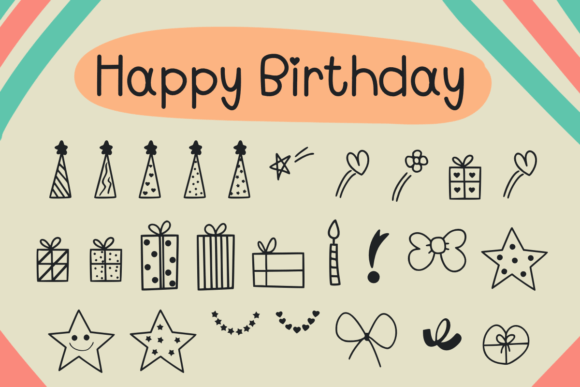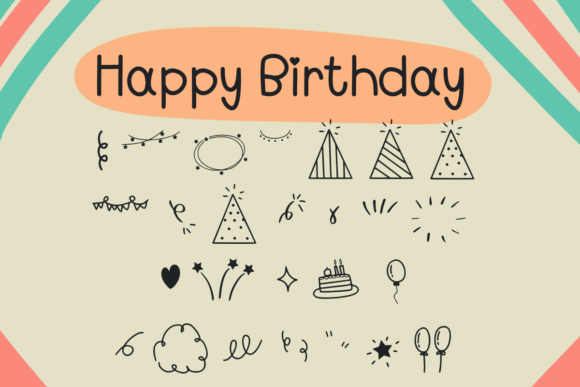
Happy Birthday Font: The Perfect Addition to Your Creative Projects
Are you looking for a unique and playful font to add a personal touch to your designs? Look no further than the Happy Birthday font! This cute and useful hand-drawn dingbats font is perfect for crafting, presentations, card making, worksheets, and many more creative projects. In this article, we’ll explore the features and benefits of the Happy Birthday font and how it can elevate your designs to the next level.
What is Happy Birthday Font?
Happy Birthday font is a hand-drawn dingbats font that features adorable and colorful illustrations of birthday-themed elements, such as cakes, candles, balloons, and more. The font is designed to be easy to use and can be installed on your computer or used online. With Happy Birthday font, you can add a playful and festive touch to your designs, making them stand out from the crowd.
Features of Happy Birthday Font
- Hand-drawn illustrations: Each character in the Happy Birthday font is carefully hand-drawn, giving it a unique and personal touch.
- Birthday-themed elements: The font features a wide range of birthday-themed elements, including cakes, candles, balloons, and more.
- Versatile: Happy Birthday font can be used for a variety of creative projects, including crafting, presentations, card making, worksheets, and more.
Benefits of Using Happy Birthday Font
Using Happy Birthday font can bring numerous benefits to your designs. Here are a few:
- Adds a personal touch: The Happy Birthday font adds a playful and personal touch to your designs, making them more engaging and memorable.
- Perfect for birthday-themed designs: As the name suggests, Happy Birthday font is perfect for birthday-themed designs, including birthday cards, invitations, and party decorations.
- Increases creativity: The font’s unique illustrations and playful style can inspire creativity and help you think outside the box.
- Easy to customize: Happy Birthday font can be easily customized to fit your design needs, including changing colors, sizes, and more.
Ideas for Using Happy Birthday Font
The Happy Birthday font is versatile and can be used for a variety of creative projects. Here are a few ideas to get you started:
- Birthday cards and invitations: Use the Happy Birthday font to create personalized birthday cards and invitations that will make the recipient feel special.
- Party decorations: Create custom party decorations, such as banners, garlands, and signs, using the Happy Birthday font.
- Crafting projects: Add a playful touch to your crafting projects, such as scrapbooking, journaling, and paper crafting, with the Happy Birthday font.
- Presentations and worksheets: Use the Happy Birthday font to add a fun and engaging touch to presentations and worksheets.
In conclusion, the Happy Birthday font is a cute and useful hand-drawn dingbats font that can add a playful and festive touch to your designs. With its unique illustrations, ease of use, and versatility, it’s perfect for designers and crafters of all levels. Whether you’re creating birthday cards, party decorations, or crafting projects, the Happy Birthday font is sure to make your designs stand out. So why wait? Add the Happy Birthday font to your creative toolbox today and start creating amazing designs!
Here are a few tips and tricks to help you get the most out of the Happy Birthday font:
- Experiment with colors: Try out different colors and color combinations to match your design theme.
- Mix and match characters: Combine different characters from the Happy Birthday font to create unique and interesting designs.
- Use it with other fonts: Pair the Happy Birthday font with other fonts to create a unique and visually appealing design.